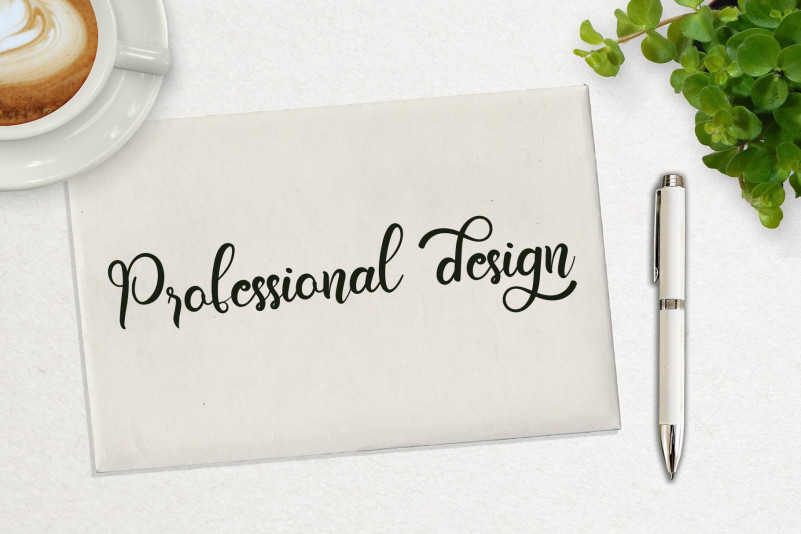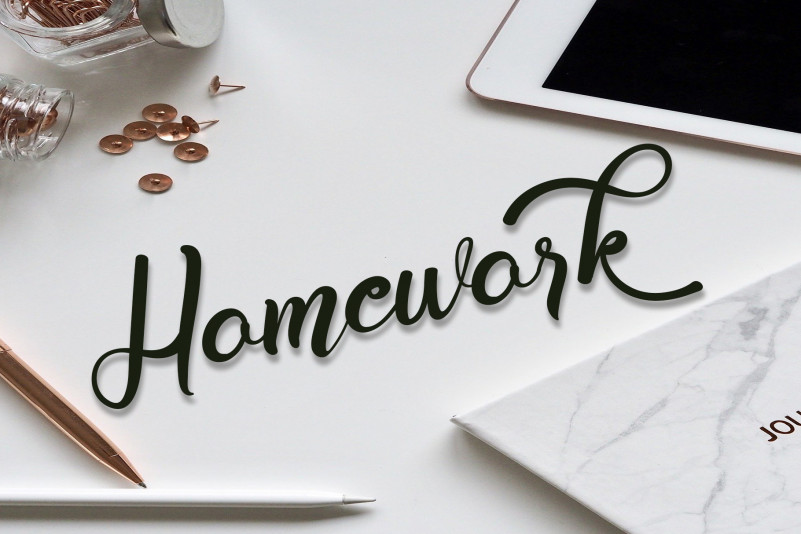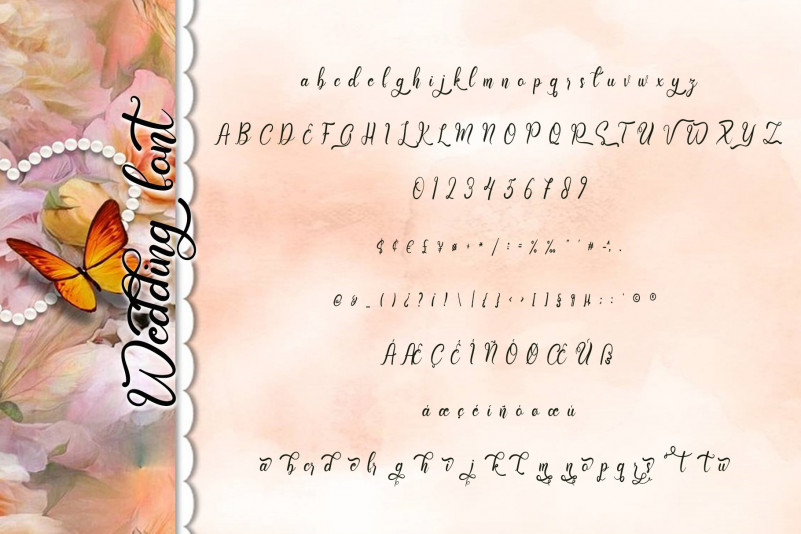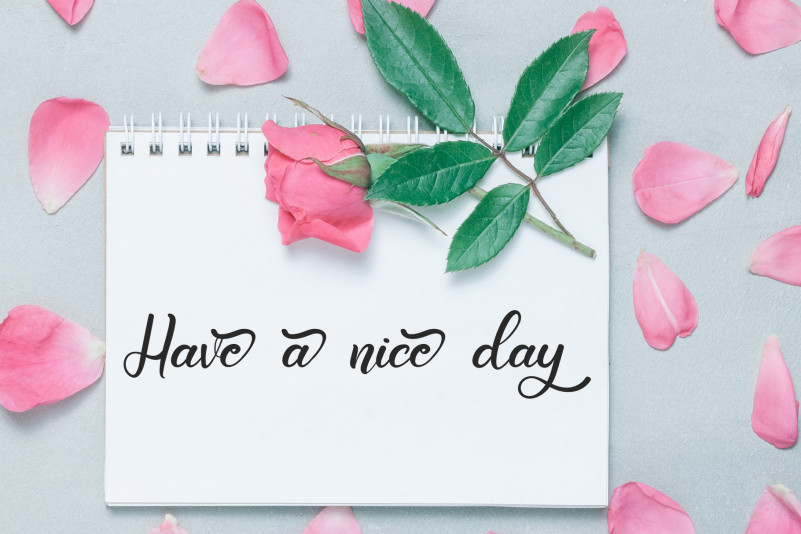
Morrita Font
Morrita Script Font
This is a dazzling script font. This font is neatly crafted and highly detailed. It is PUA encoded which means you can access all glyphs and swashes with ease!